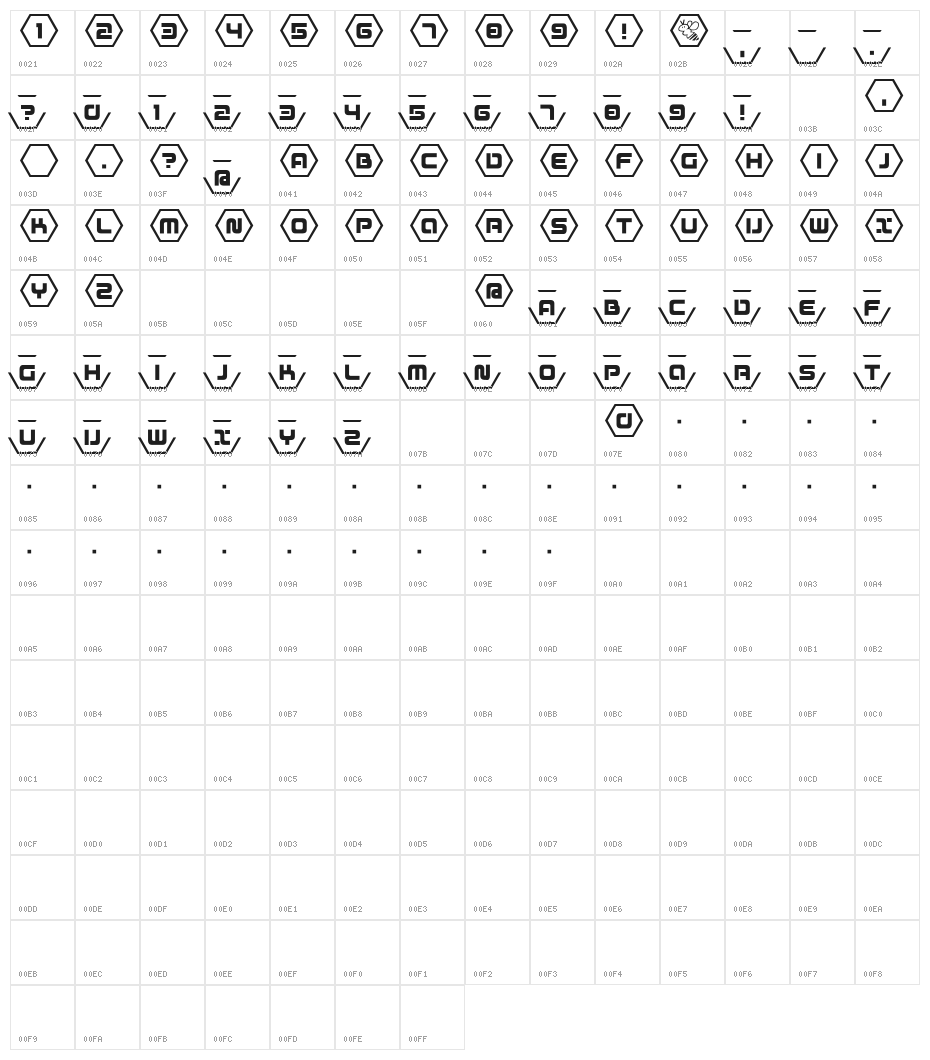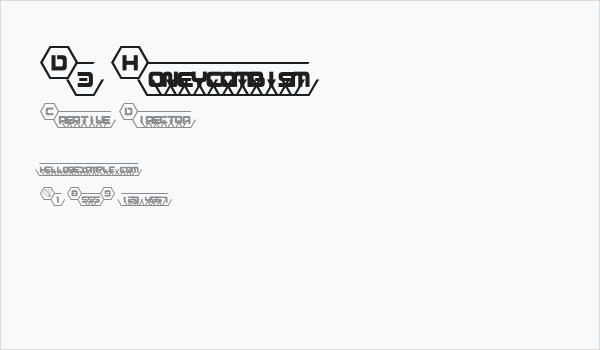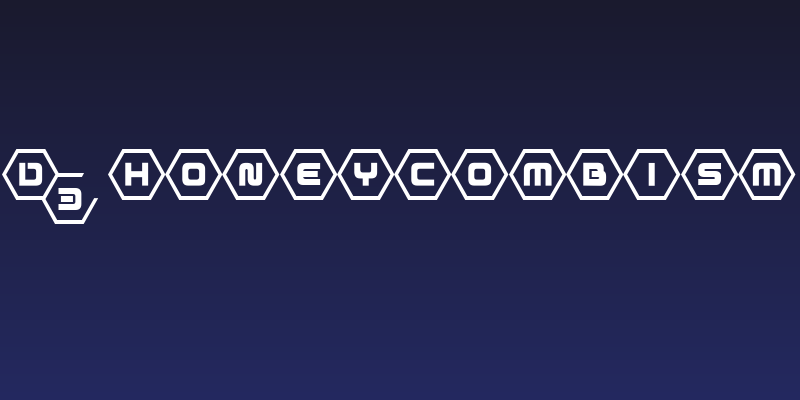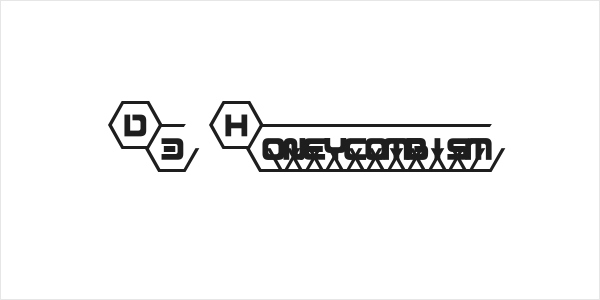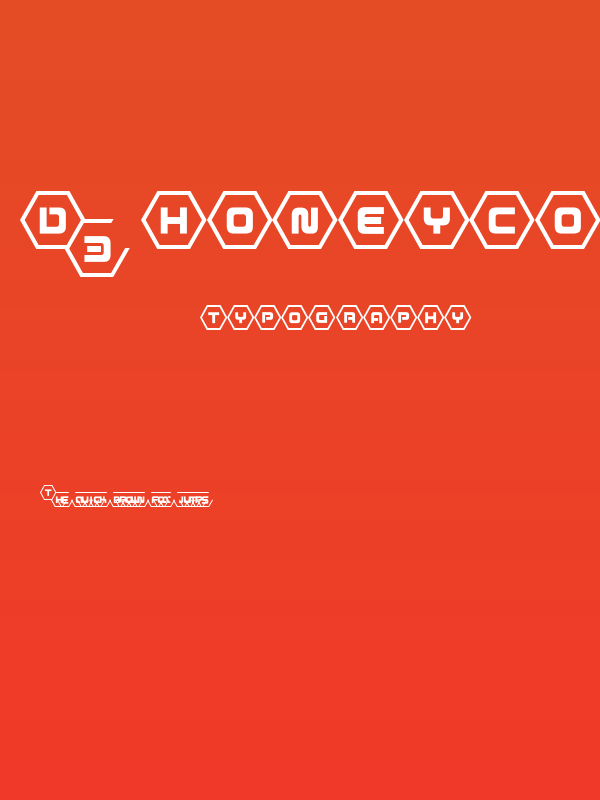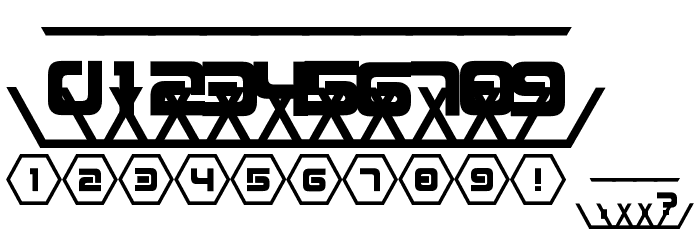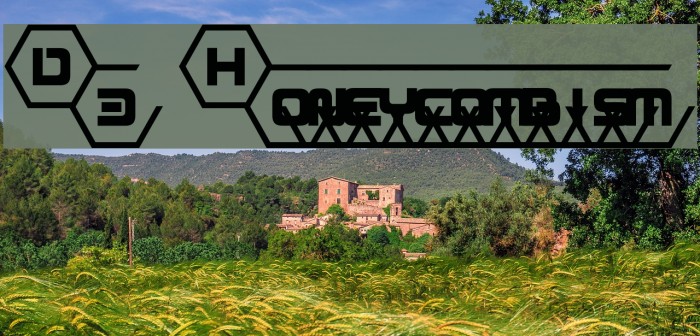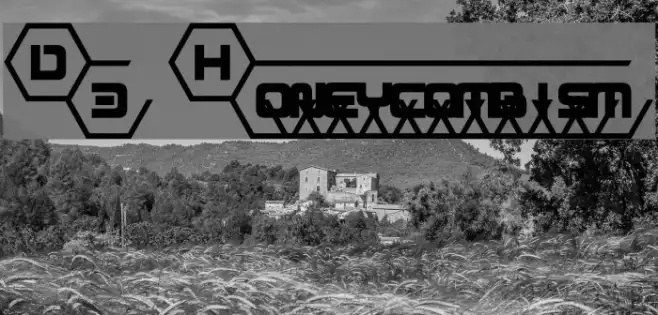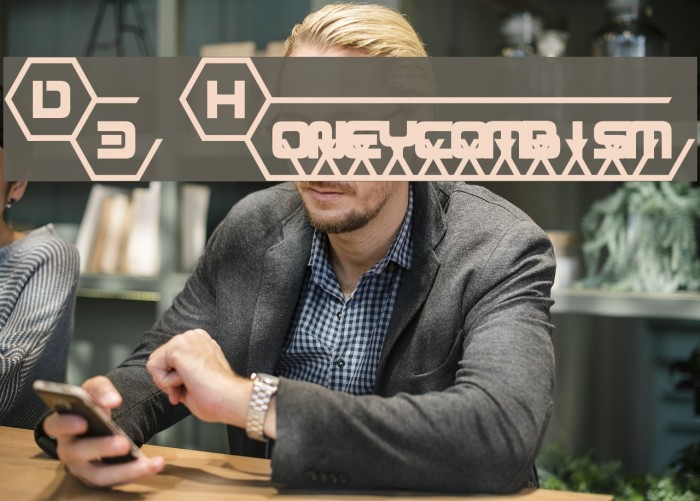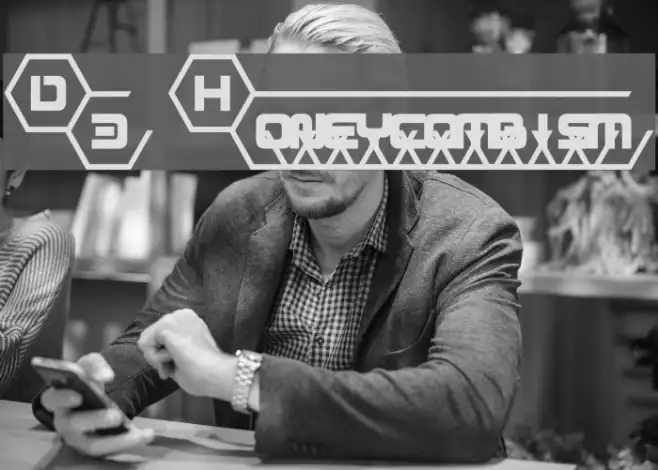
D3 Honeycombism Font
| Gesamtstil | Futuristic |
| Anwendungsfall | Logos, Headlines, Posters |
| Vorgeschlagene Projekte | Ideal for sci-fi themed designs, tech branding, video game titles, and futuristic posters. |